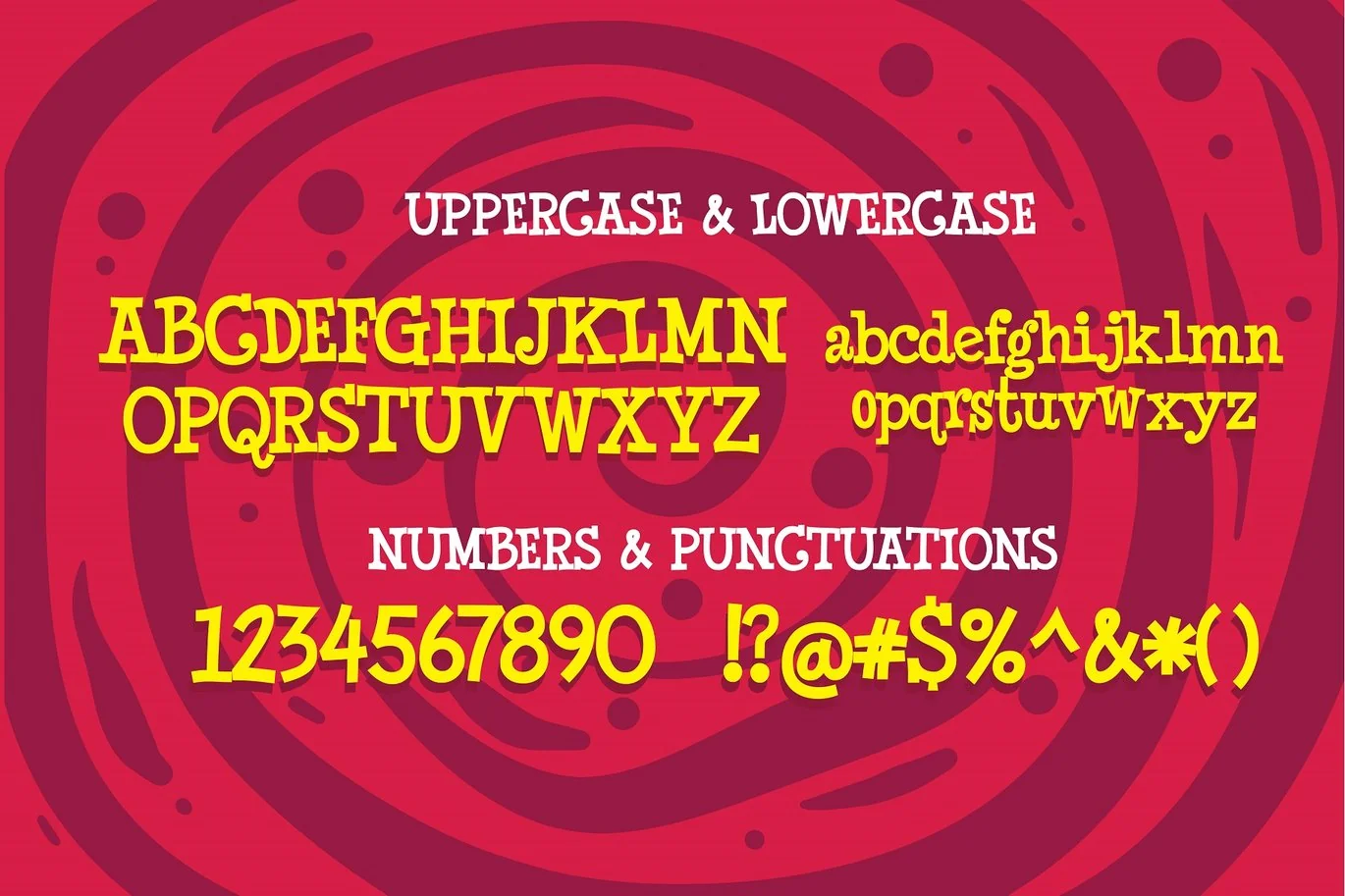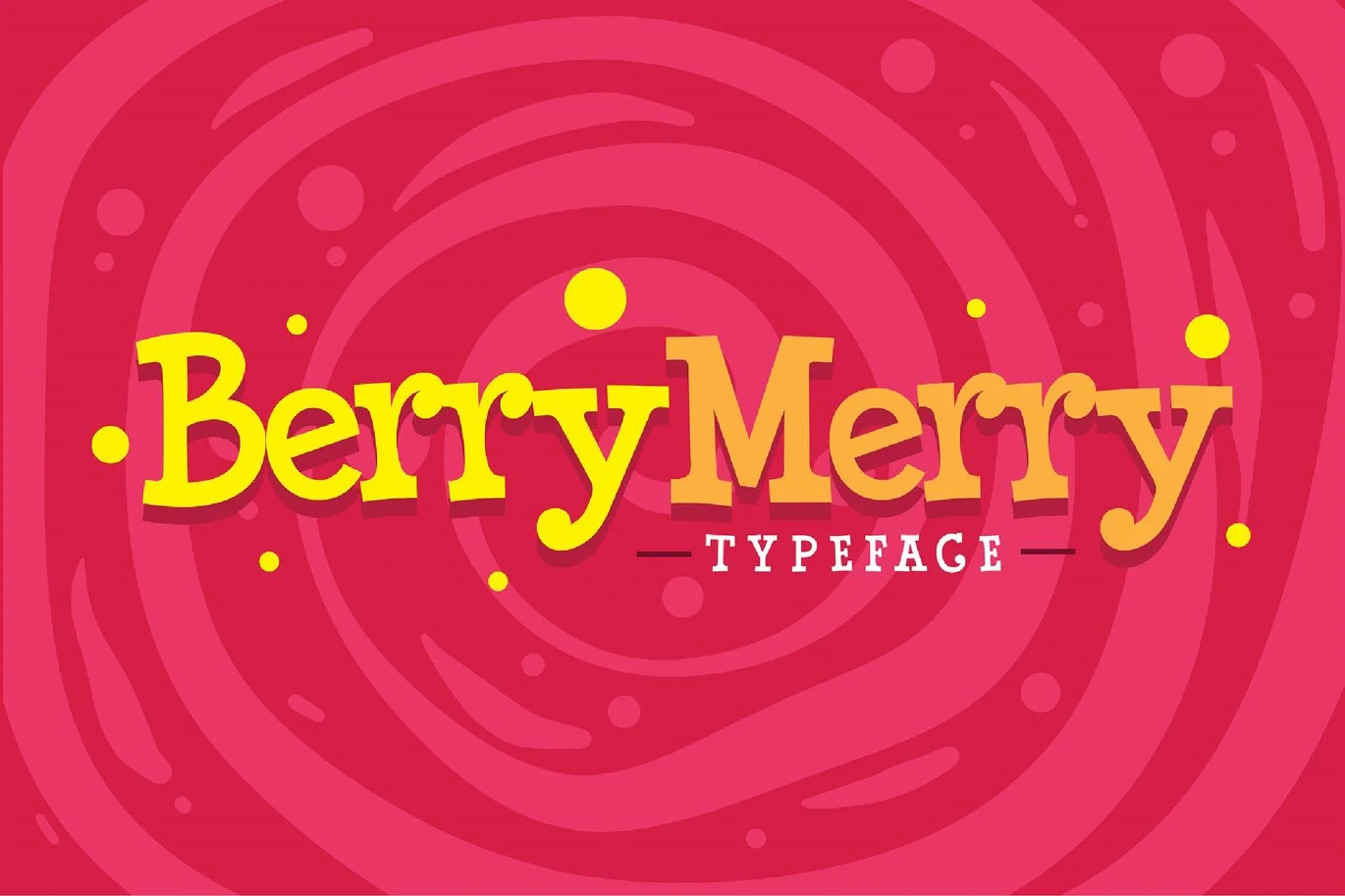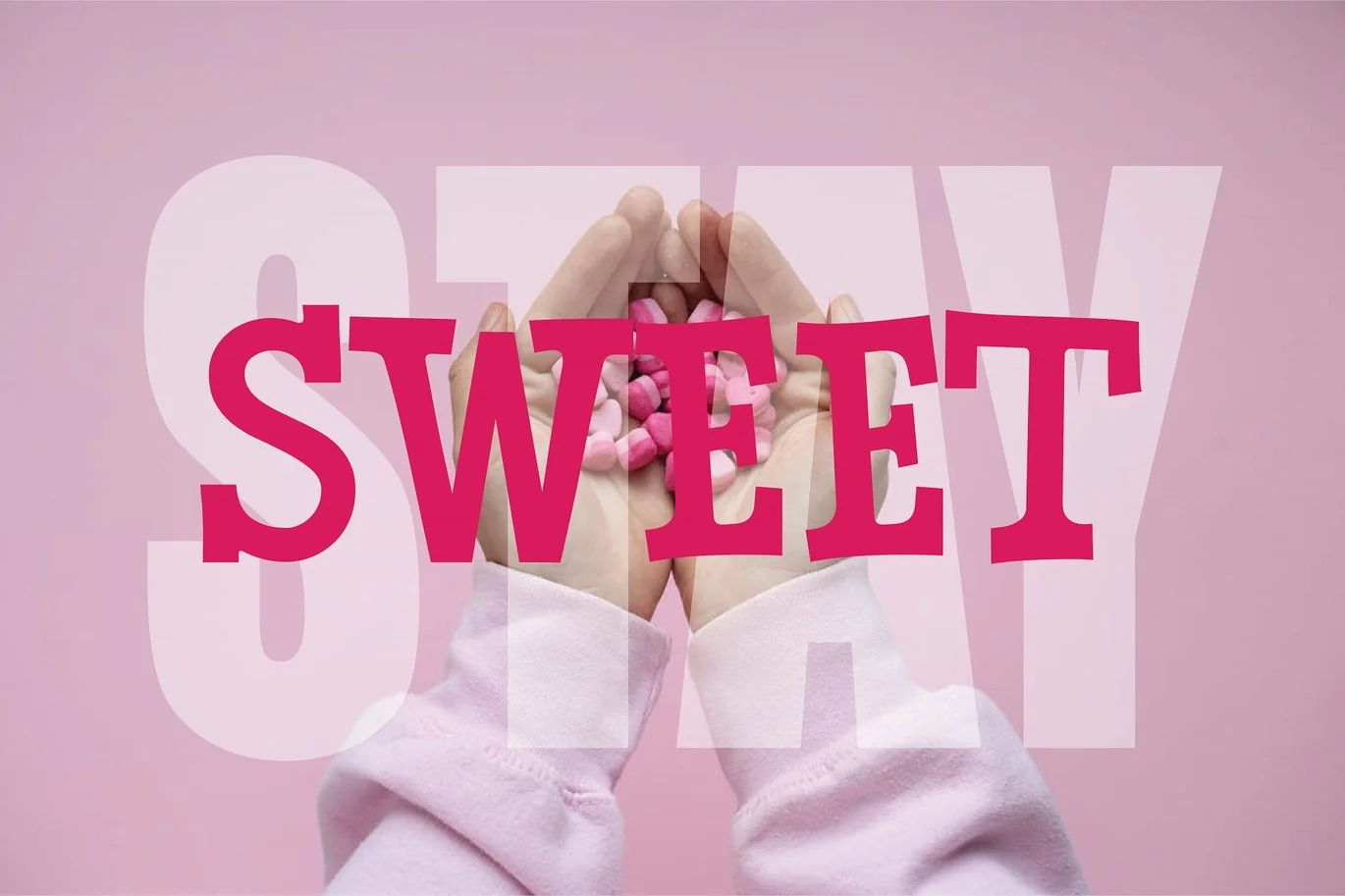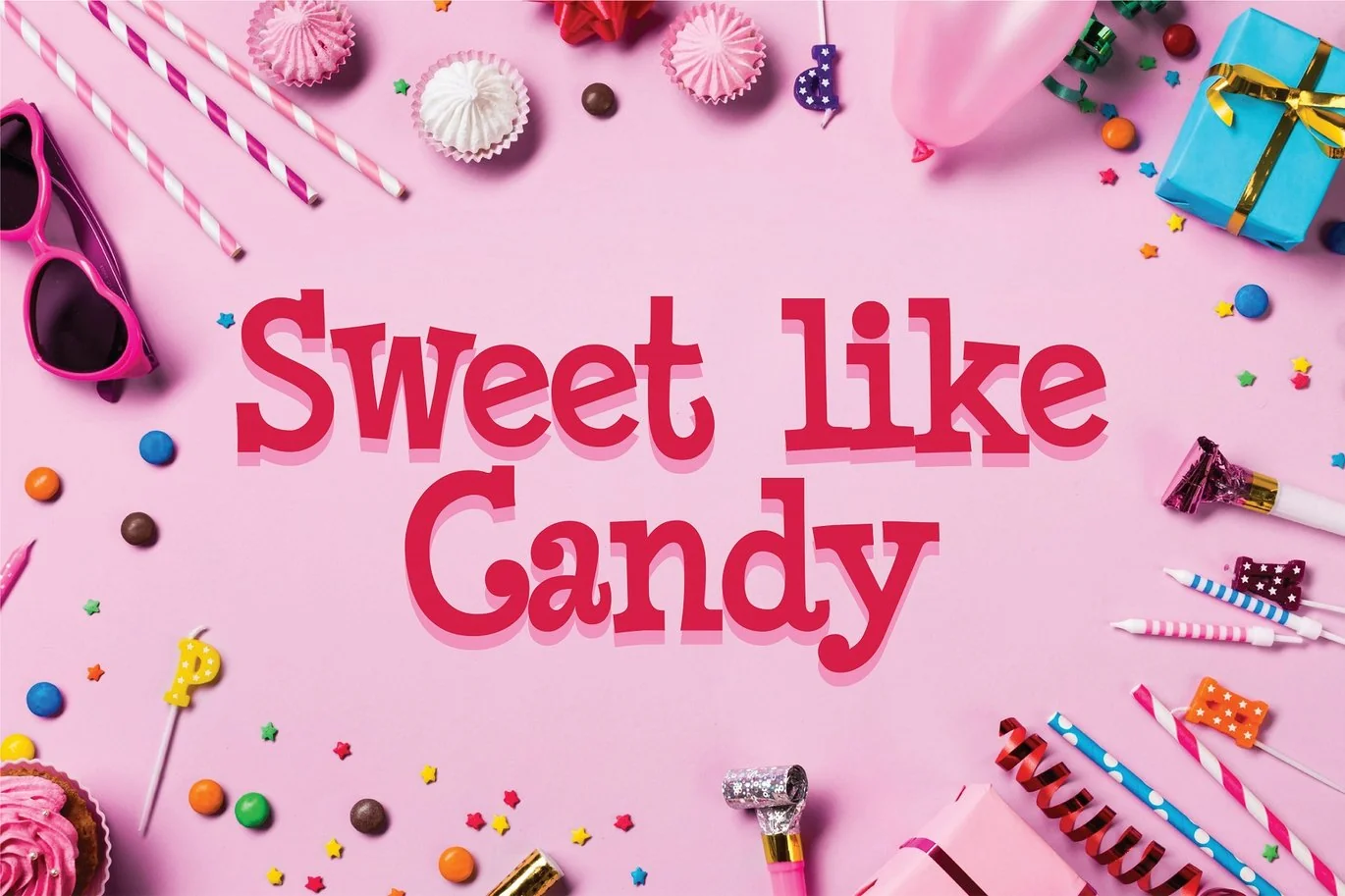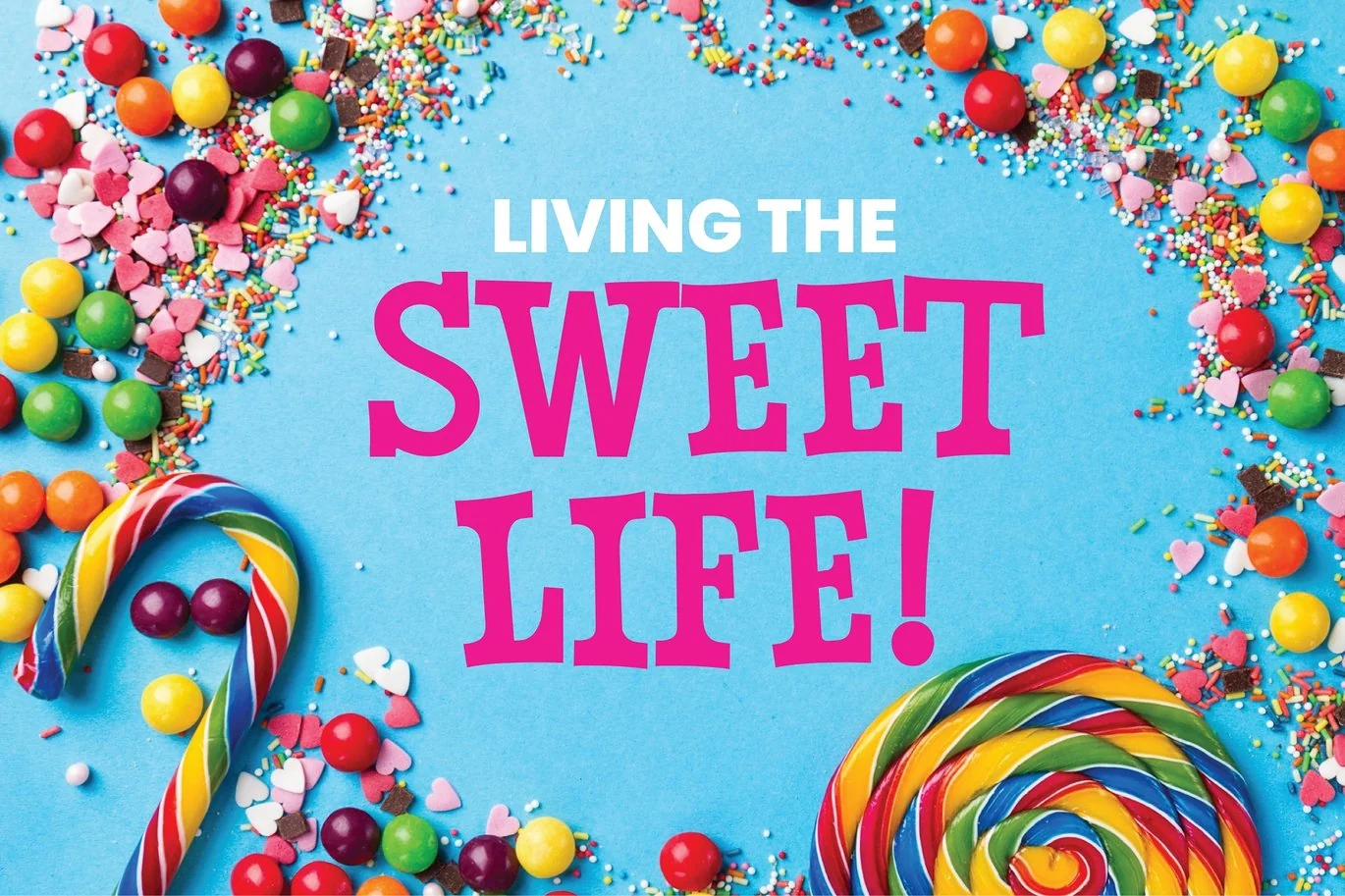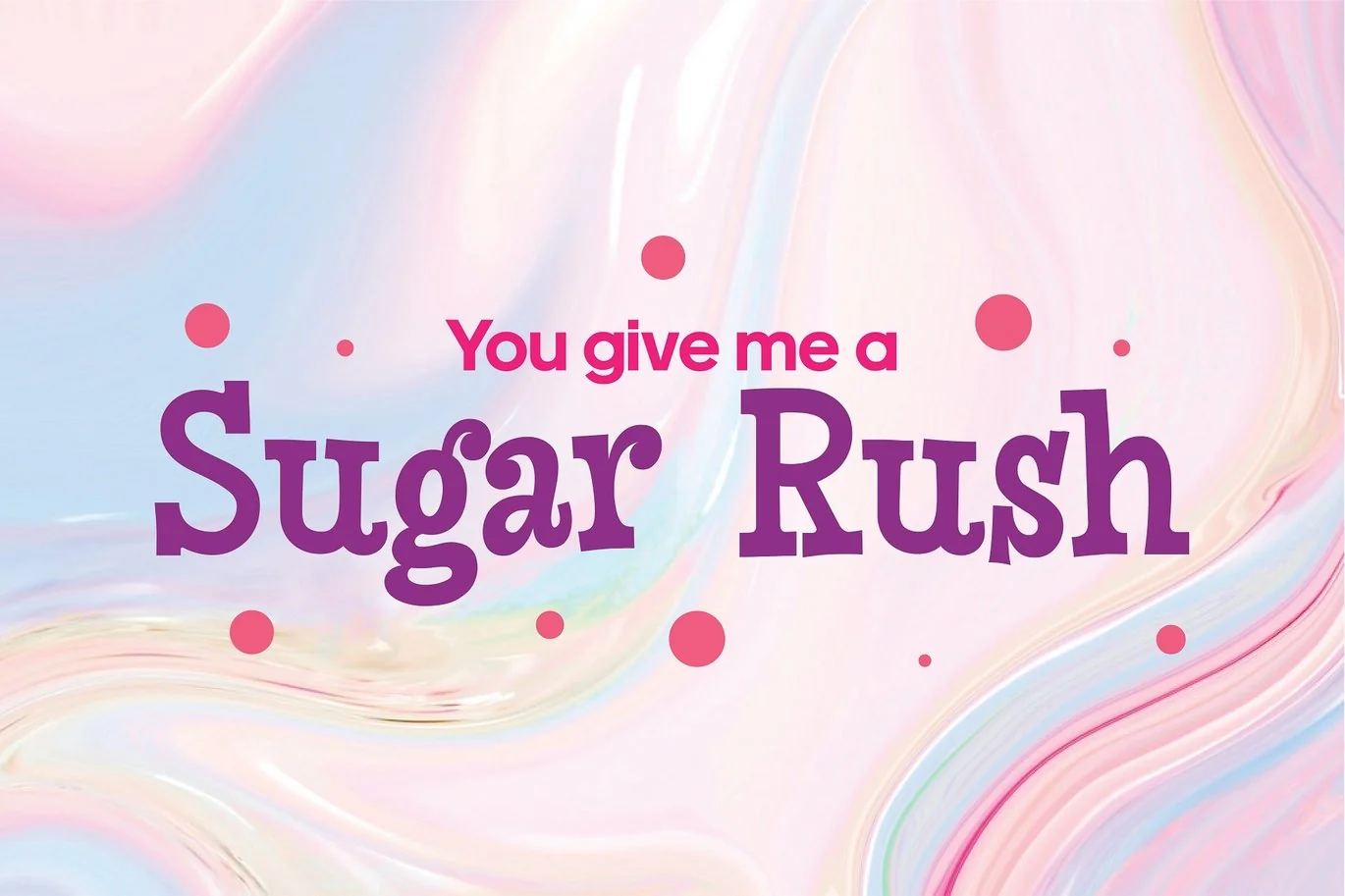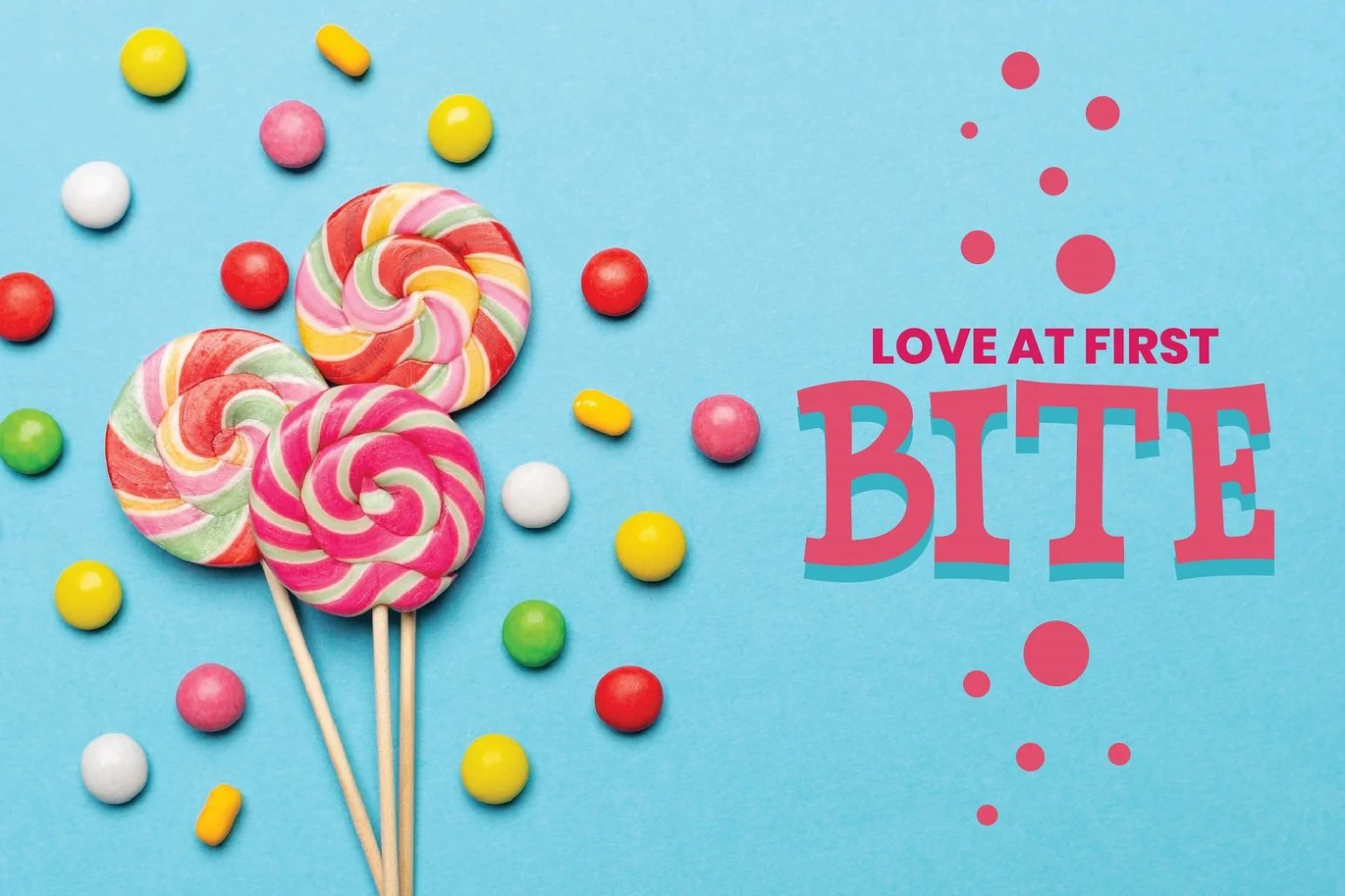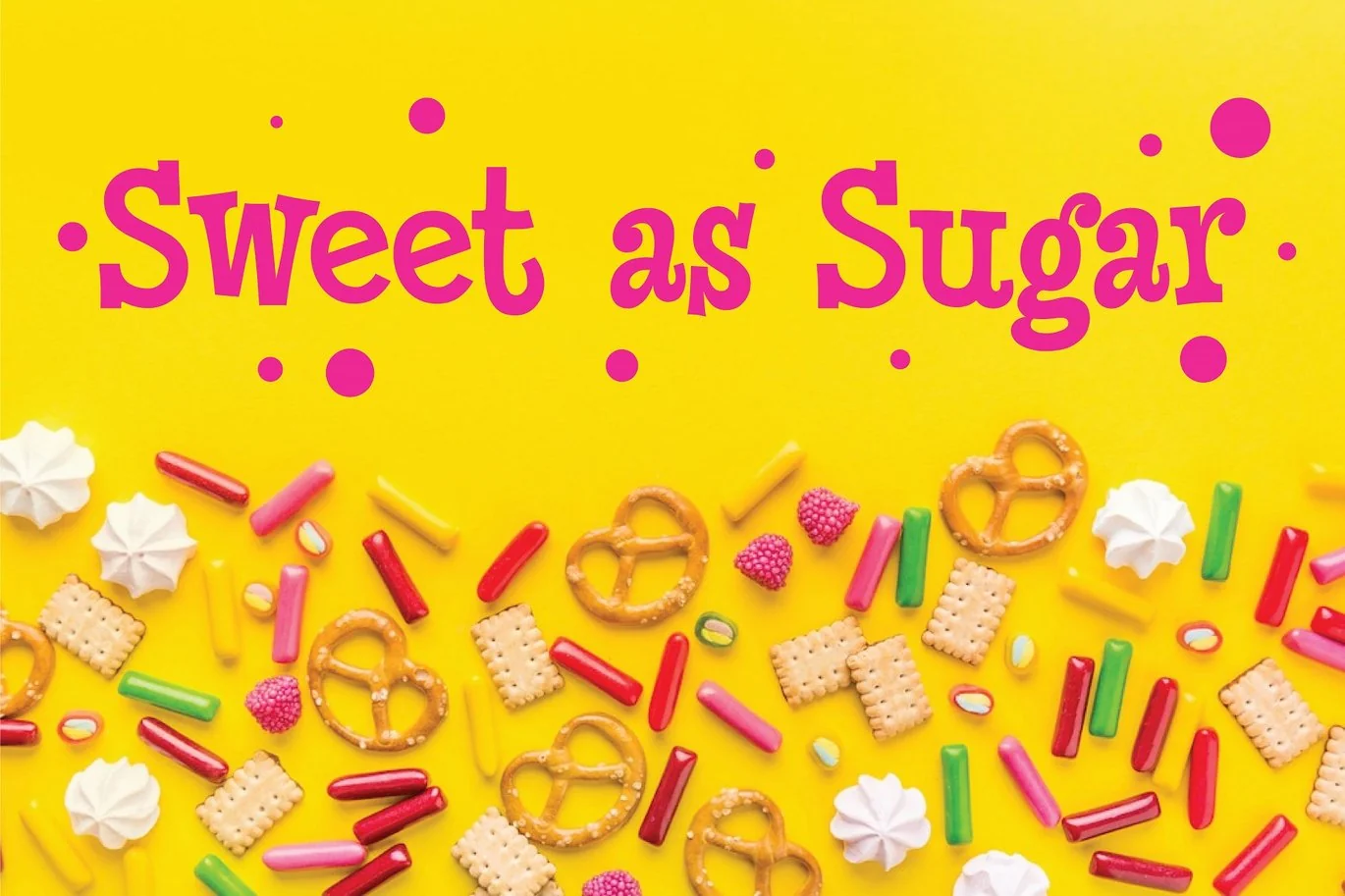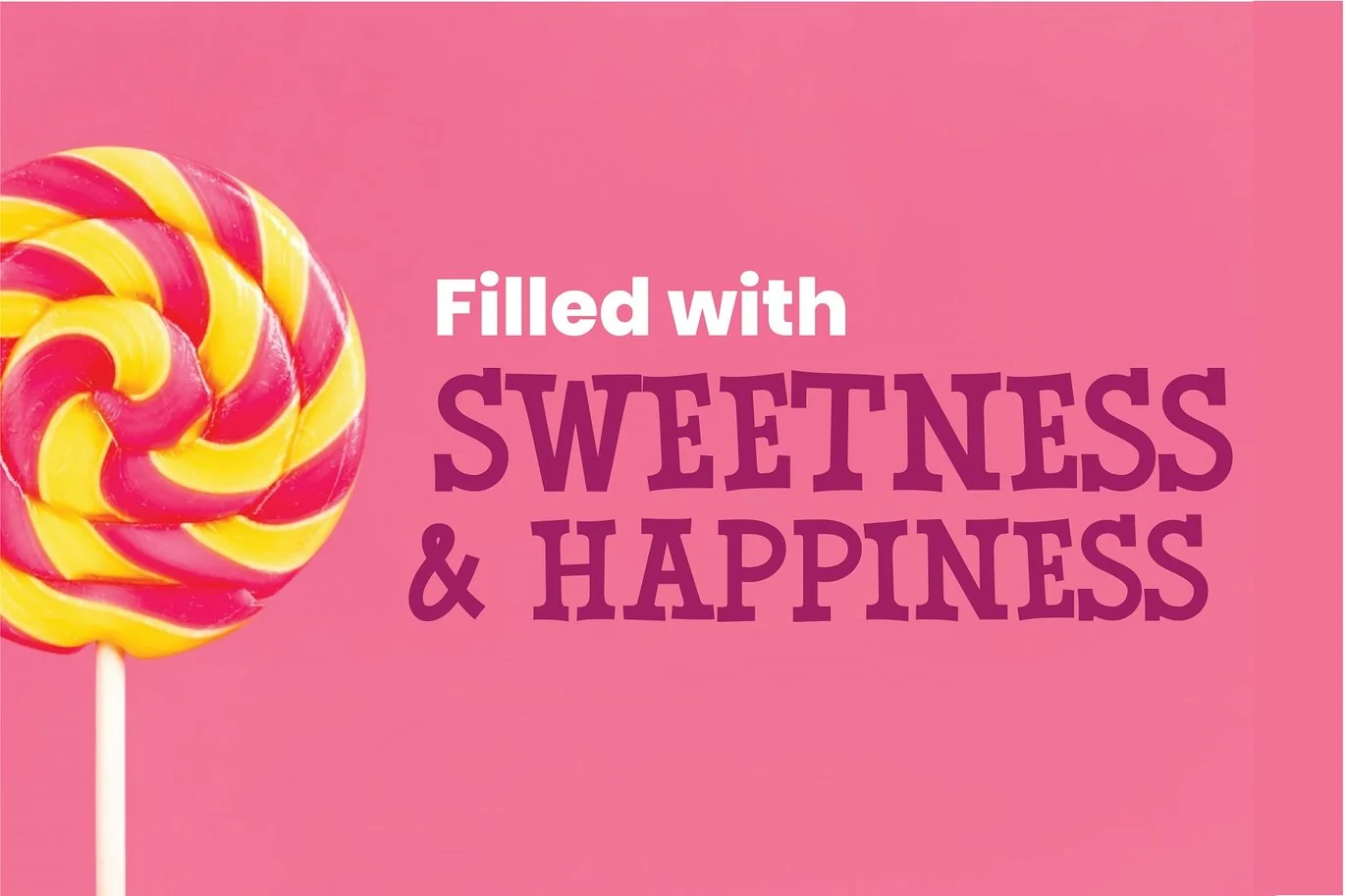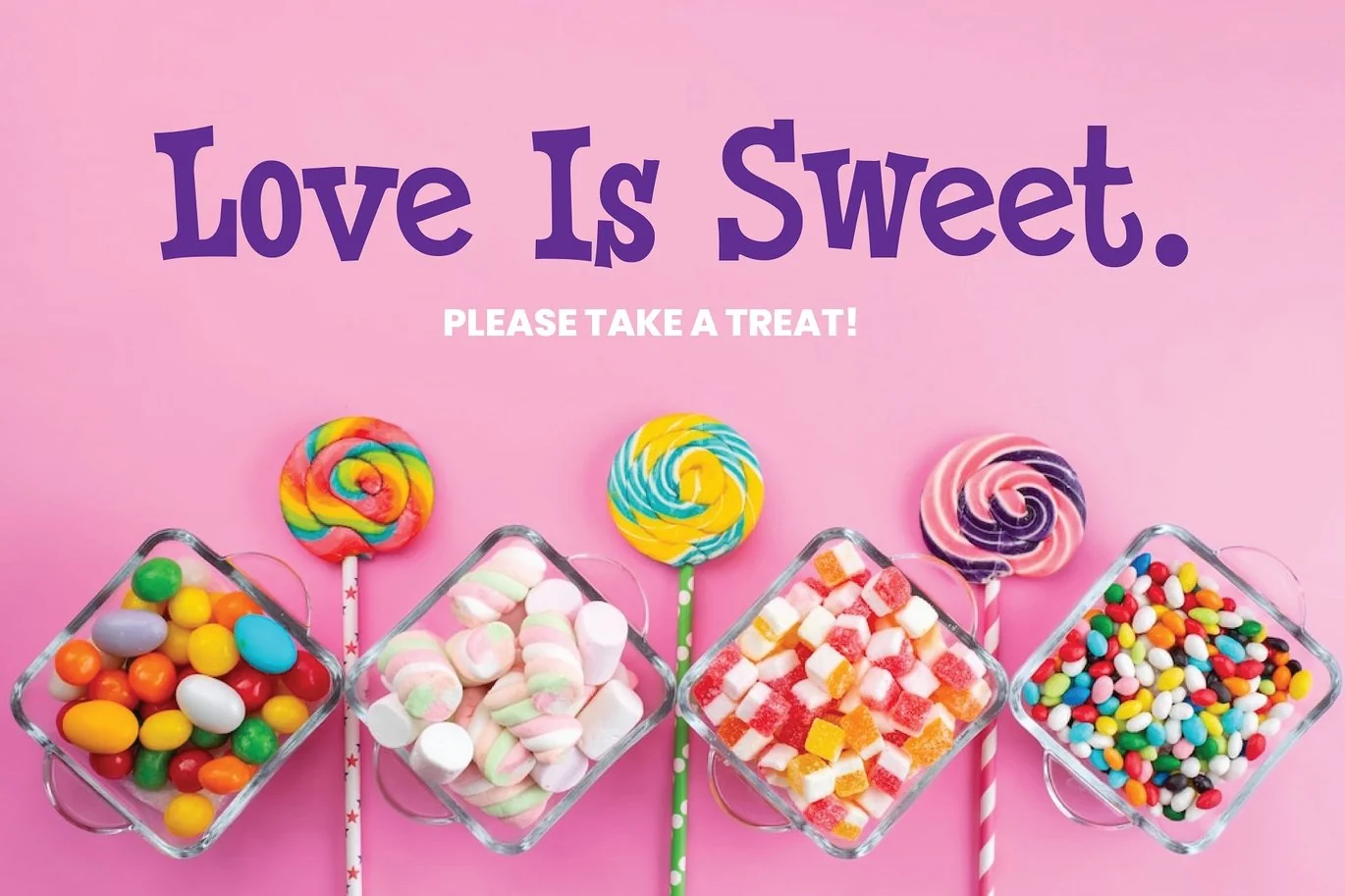
BerryMerry Typeface
BerryMerry is a playful retro serif font. It’s inspired by a fabulous mid-century design, but also can be easily used in a modern context. This quirky display font is perfect for beautiful headers, social media, cozy event posters, birthday cards, magazines, packaging, branding, and pretty much whatever you can imagine. BerryMerry works extremely well if you are designing any kind of product for kids.